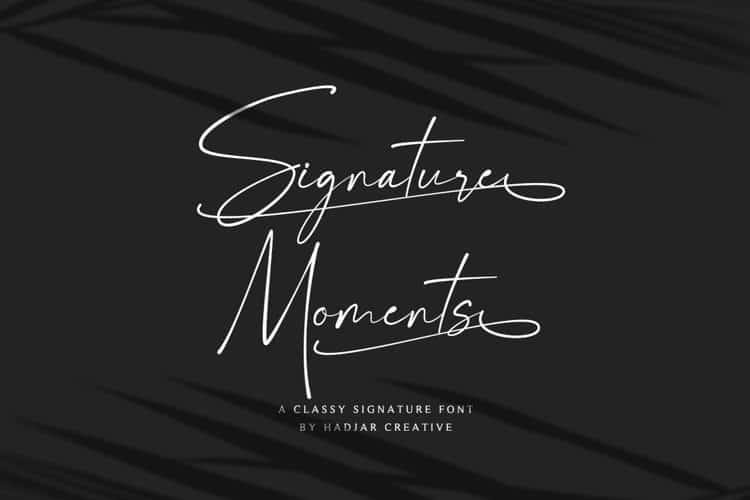
Signature Moments Font
Signature Moments Handwritten Font is a signature script font, classy look, and versatile style. Its smooth and natural lines would make your name or logo look elegant. This font easy to use and friendly for designer and it is PUA encoded which means you can access all of the glyphs and swashes with ease!.
Signature Moments Handwritten Font is perfect for use as signature, branding, logos, quotes, card, wedding, social media, watermark, name tag, and many other project.